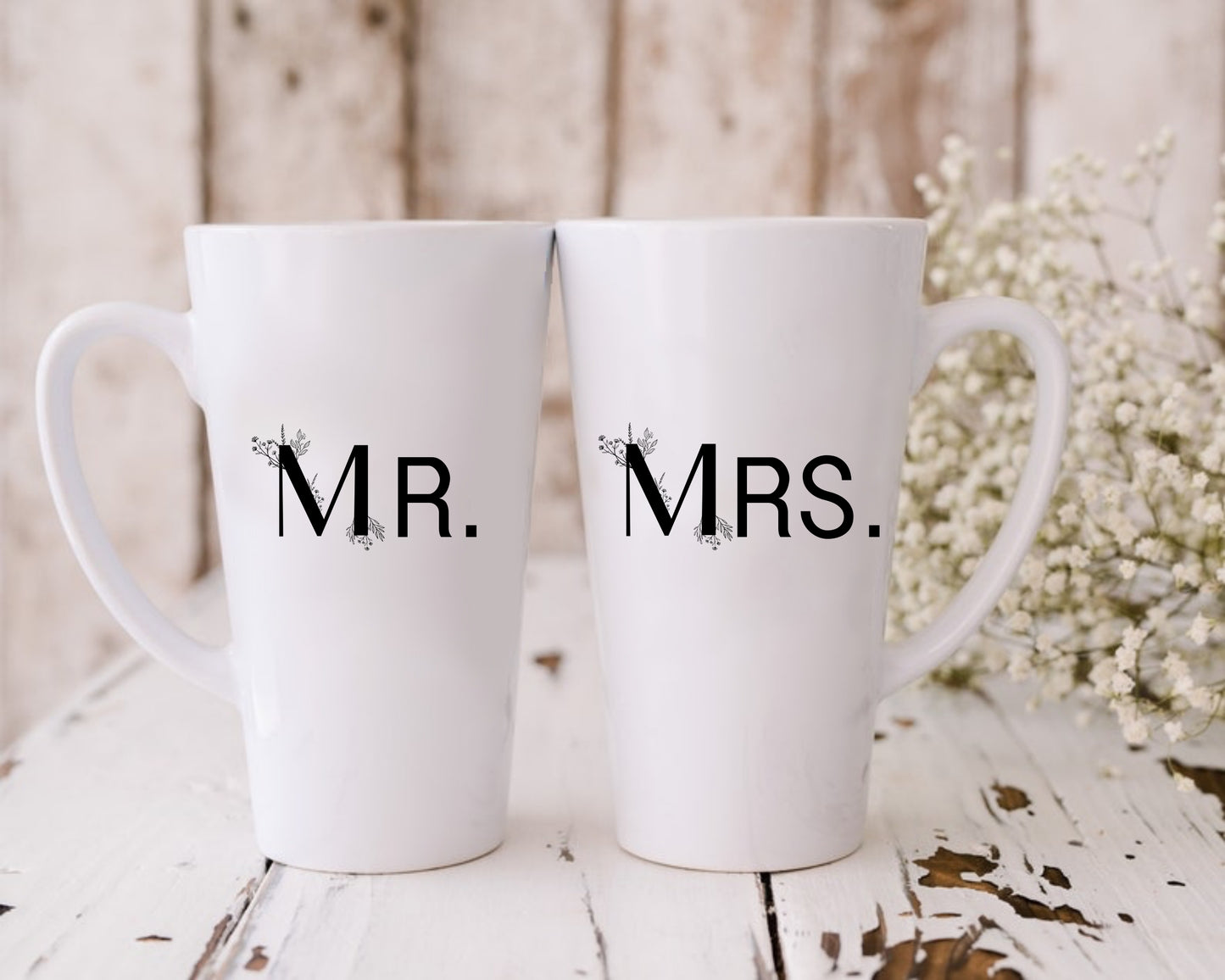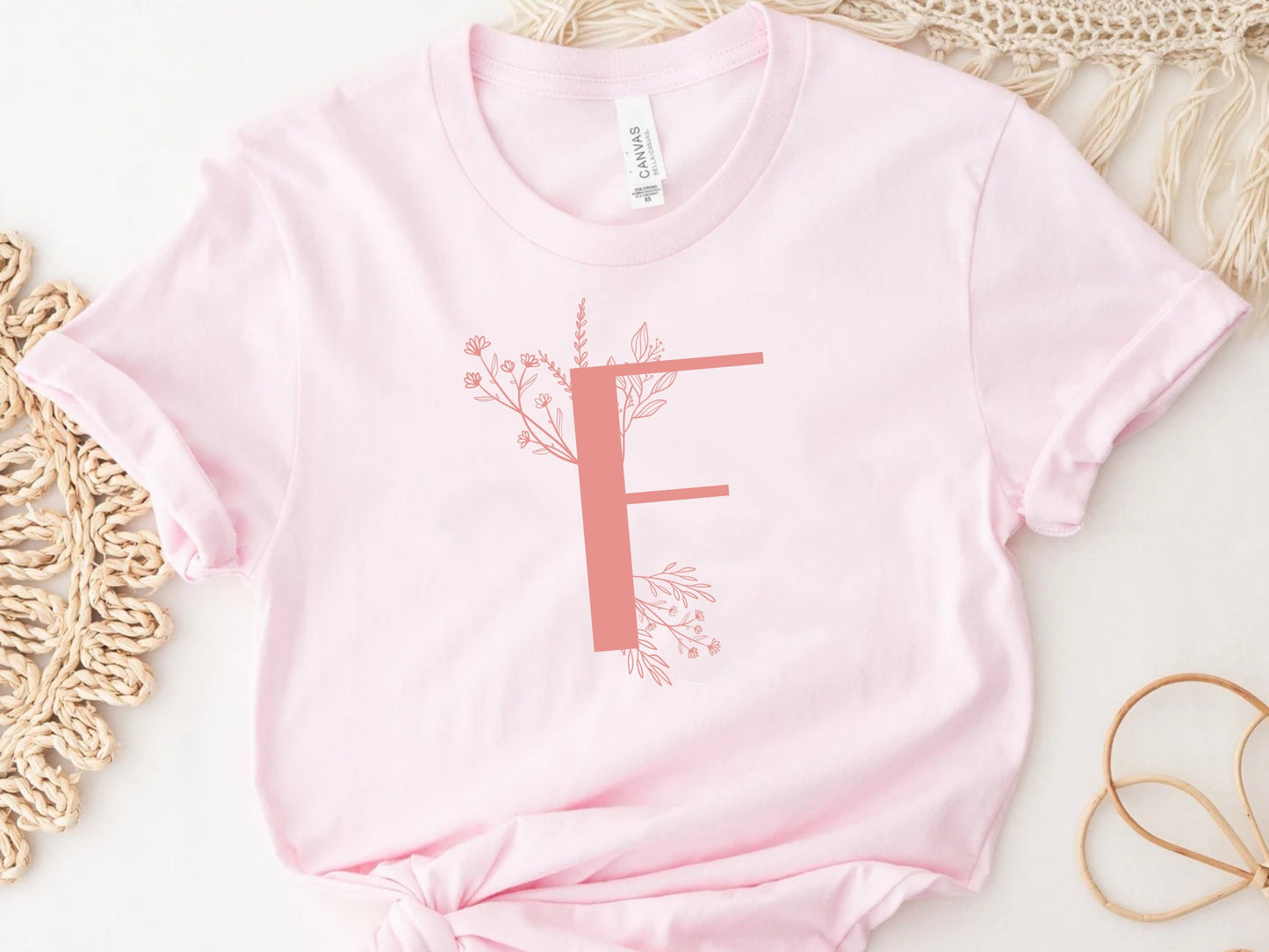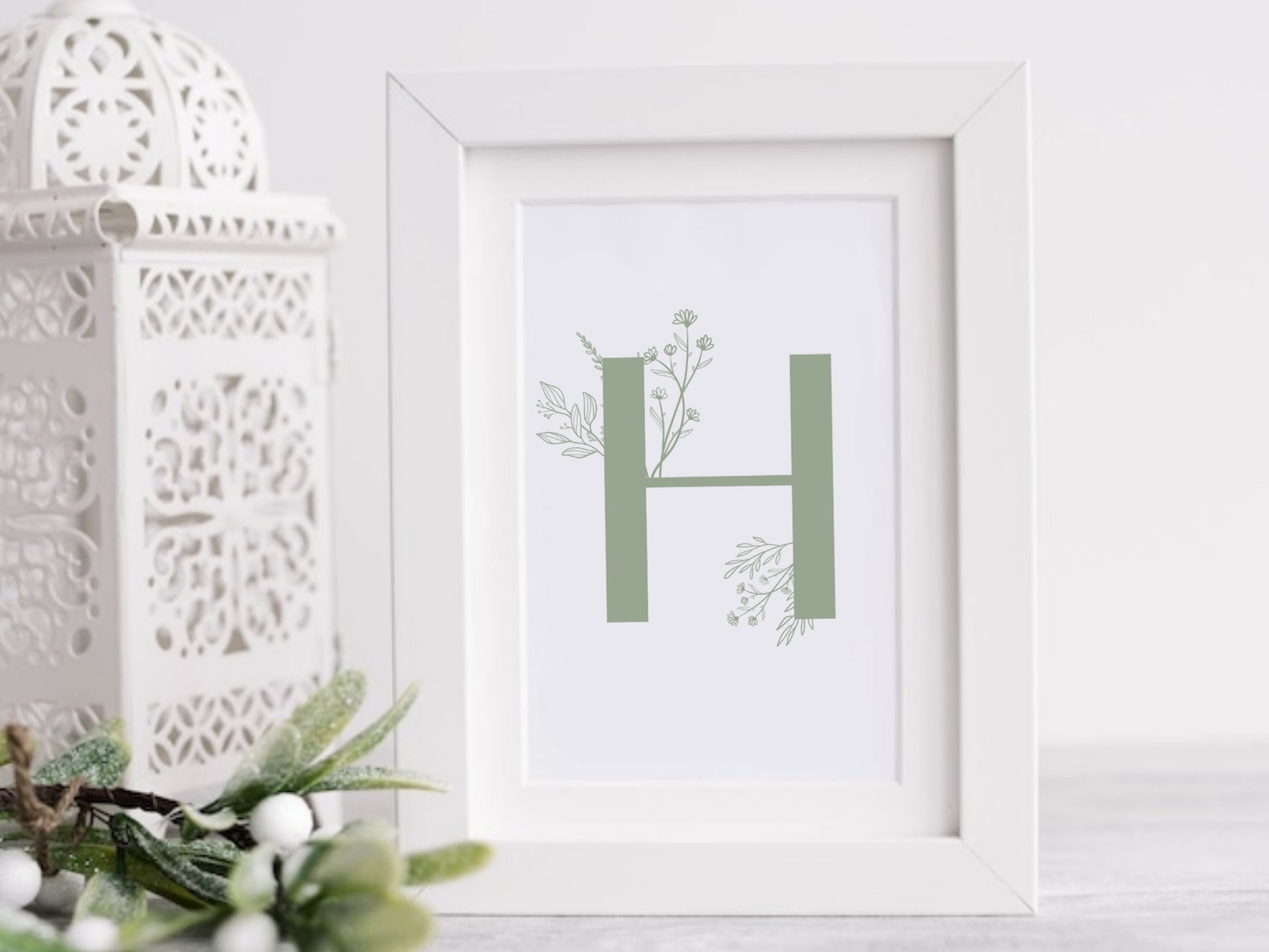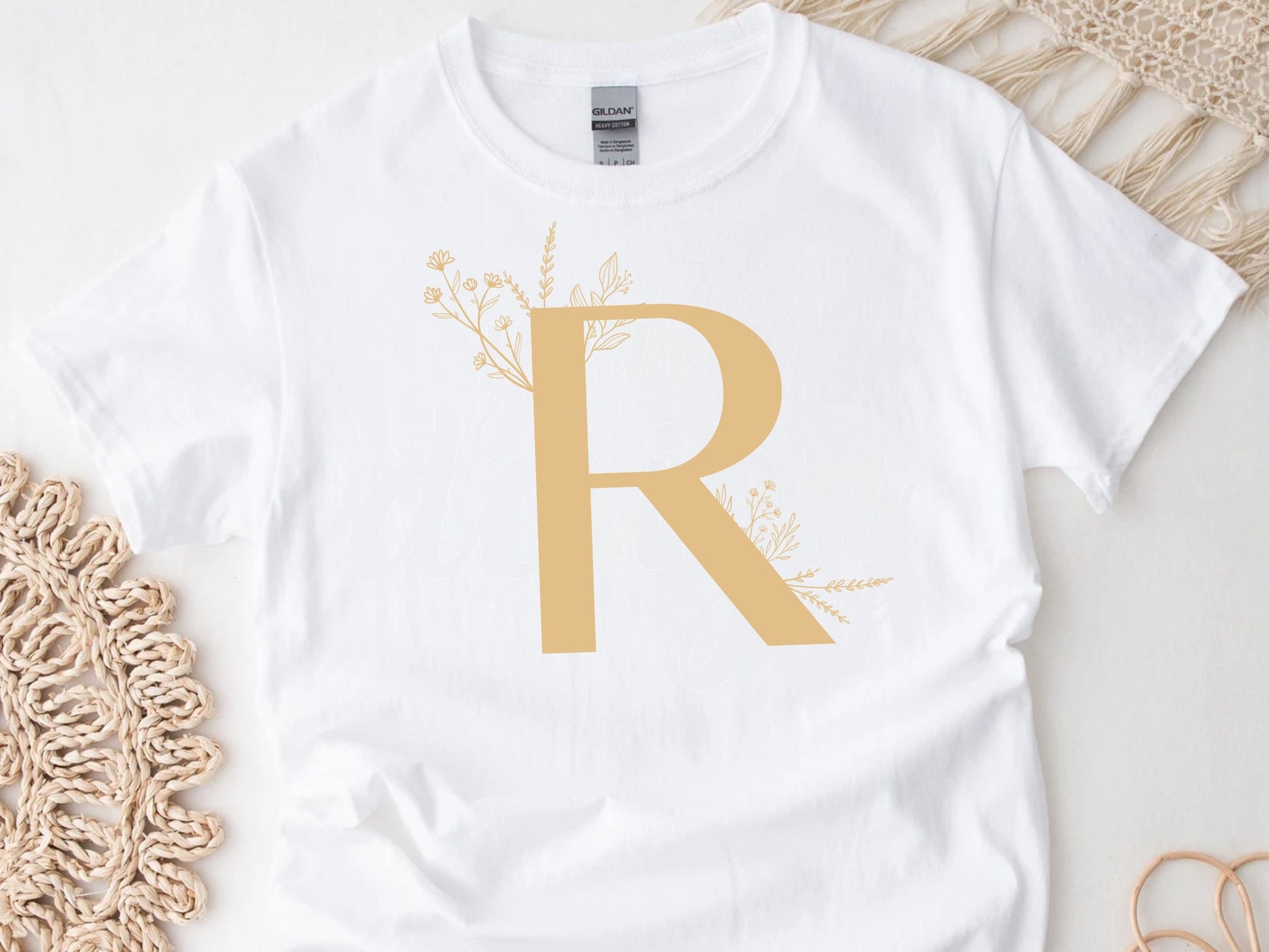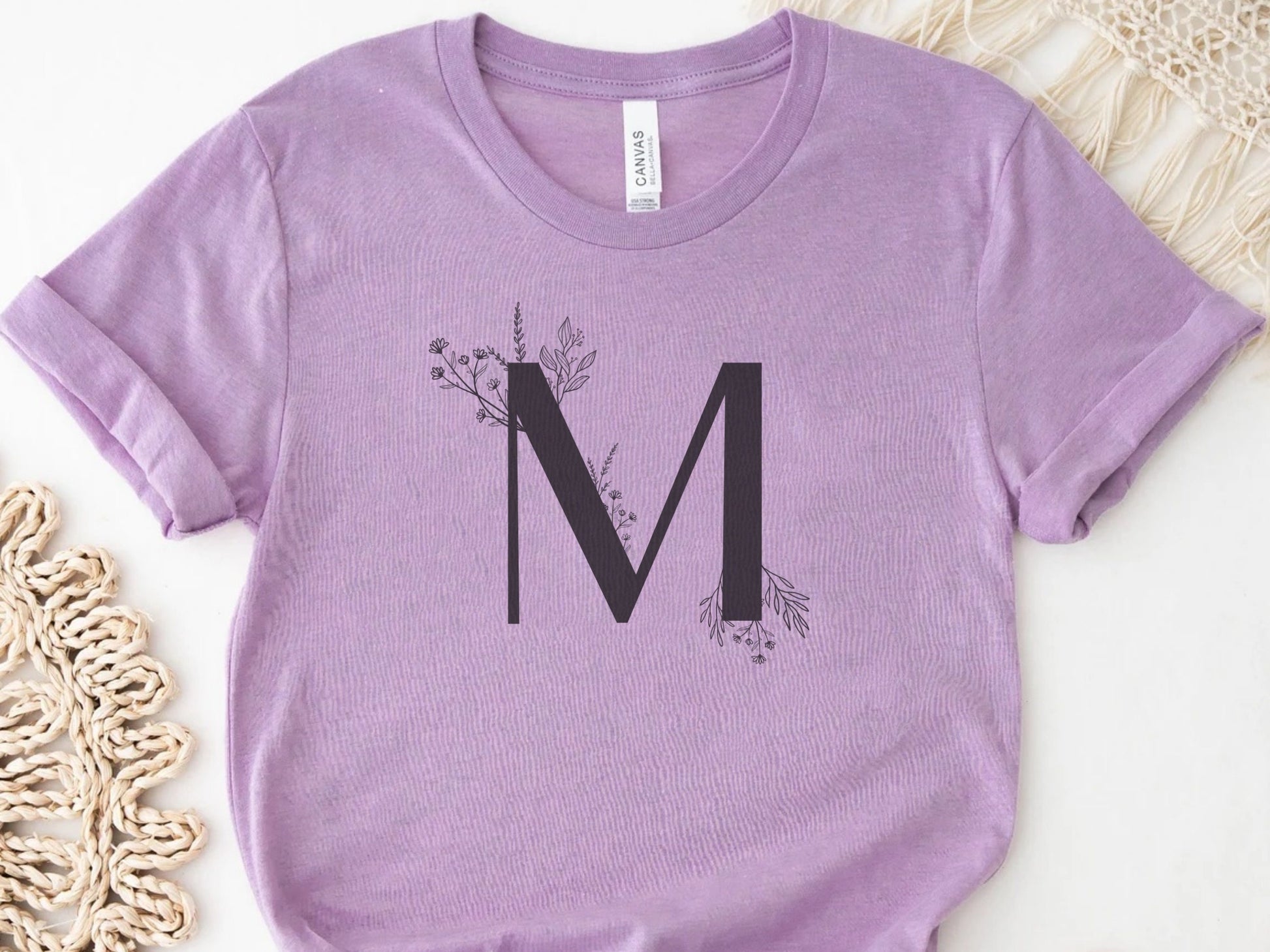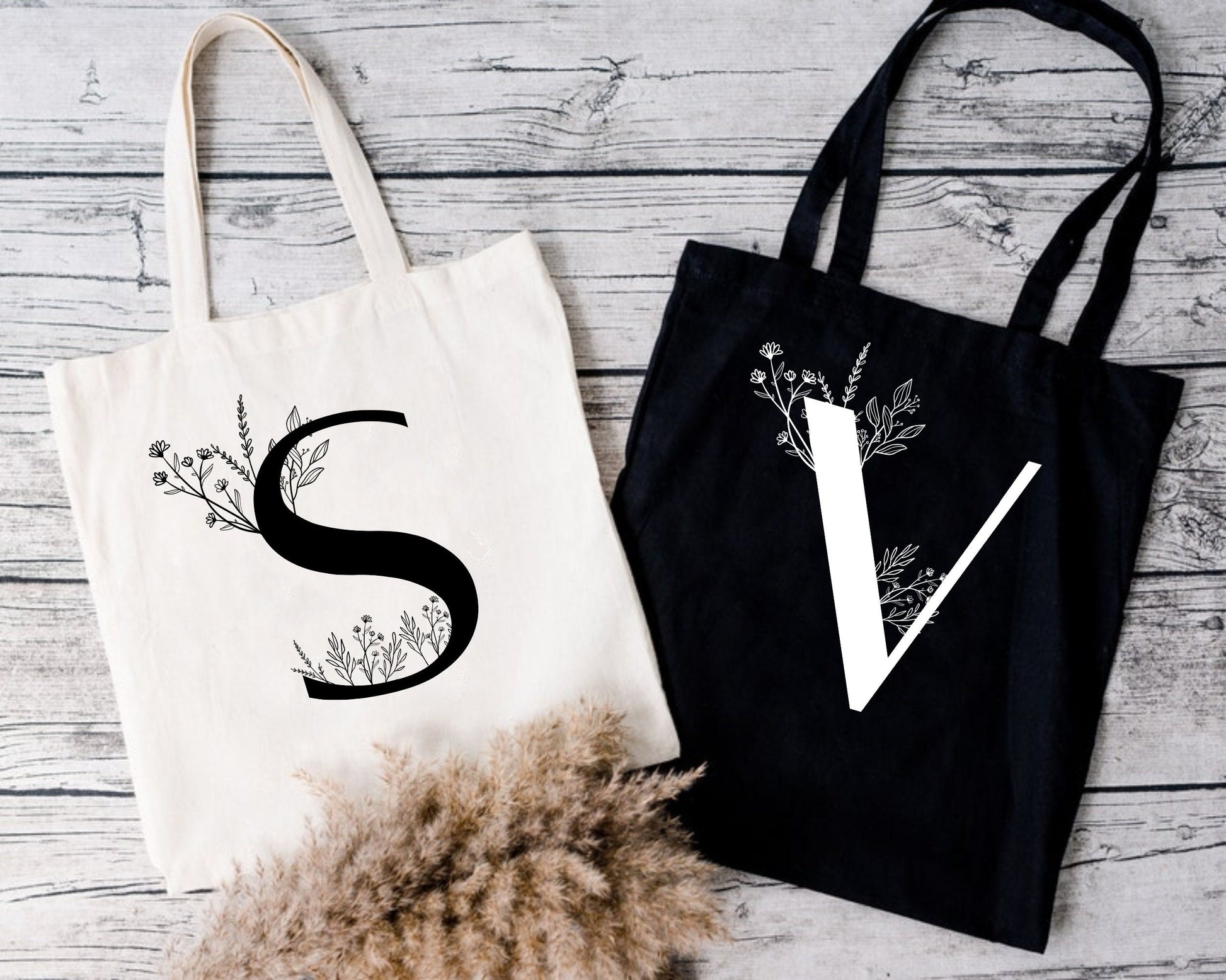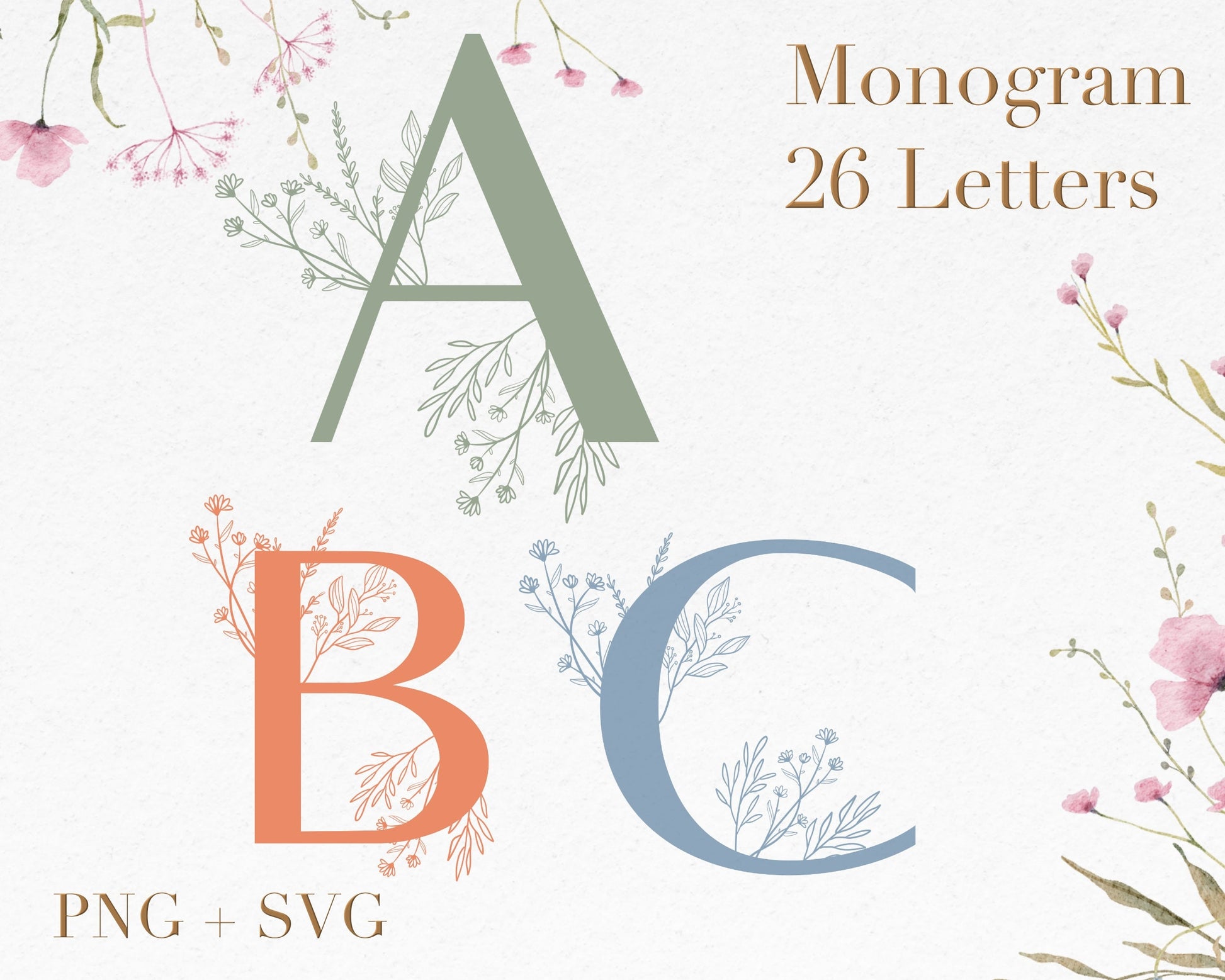
Wild Flower Monogram Alphabet Clipart
26 individual wildflower letters/ monogram/ alphabets for instant download, includes SVG and PNG file types(high resolution outline art and silhouette, 300 dpi). Easy to download and edit for your projects, such as banners, tapestry, Christmas ornament, keepsake, wedding decor & invitation, t-shirts, mugs, bags, wall decor, cards and POD products...etc. Those files are compatible with Canva, Cricut, Illustrator, photoshop and other software, cut files can be used for vinyl, engrave and prints, turning your designs into unique creations for personal and commercial use.